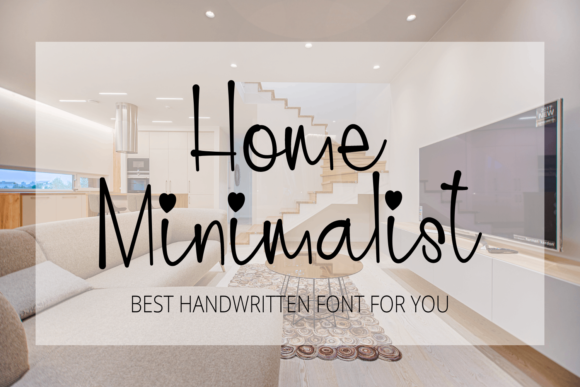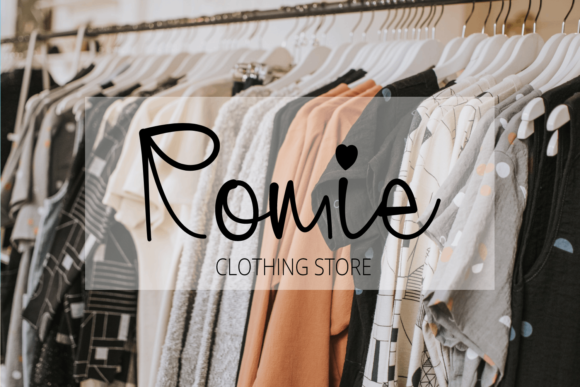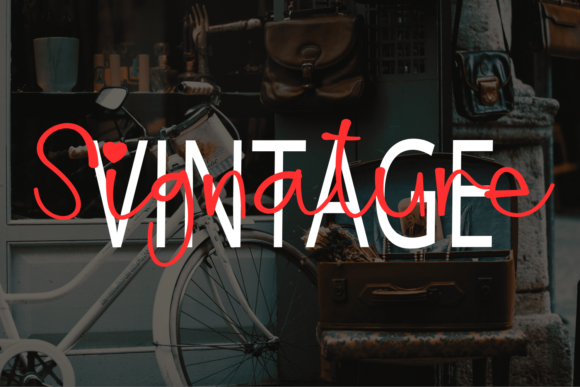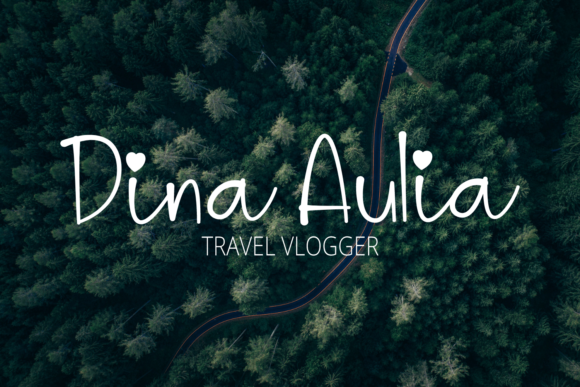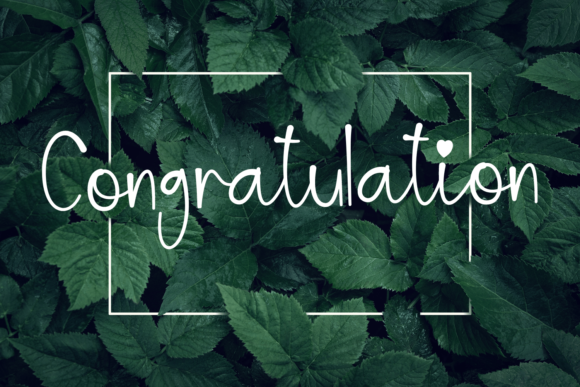
Home Minimalist Font
Home Minimalist is a cute and simple lettered handwritten font that brings a touch of authenticity to your designs. Whether you’re working on chalkboard quotes, teaching materials, or any project that requires a personal and realistic feel, this font is the perfect choice.
The handwritten style of Home Minimalist adds a warm and friendly touch to your designs, creating a sense of familiarity and approachability. Its simplicity and minimalism make it versatile and easy to read, ensuring that your message is conveyed clearly and effectively.
Embrace Home Minimalist confidently and let it enhance your designs. Its authentic look adds a personal and realistic feel, making your chalkboard quotes or teaching materials come to life. Whether you’re creating educational resources, inspiring quotes, or any other design that aims to connect with the audience on a personal level, this font will help you achieve that.
Add Home Minimalist to your projects and enjoy the charming and genuine vibe it brings. Watch as it adds a touch of simplicity and authenticity, making your designs more engaging and relatable to your audience.